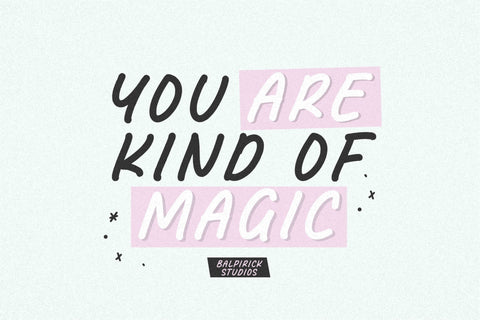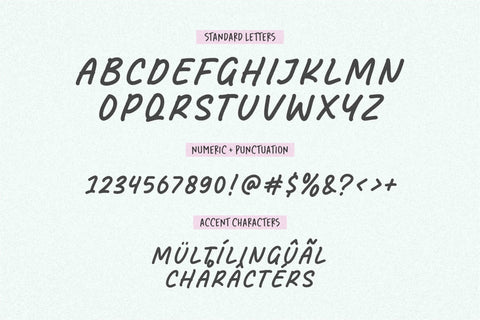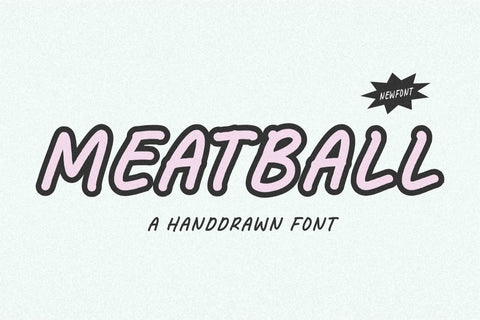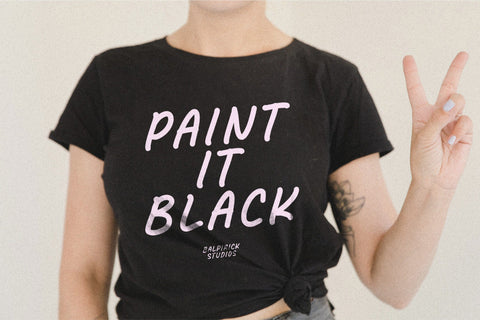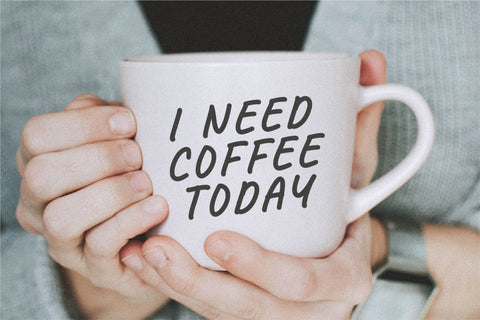
Meatball Font
Meatball is a Handdrawn Font.
Whether you’re using it for crafts, digital design, presentations, or making greeting cards, this font has the potential to become your favorite go-to font, no matter the occasion!
This font only has allcaps letters.